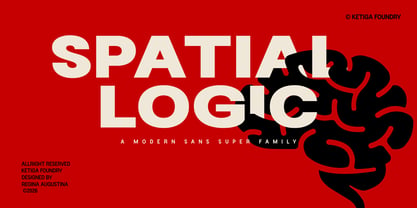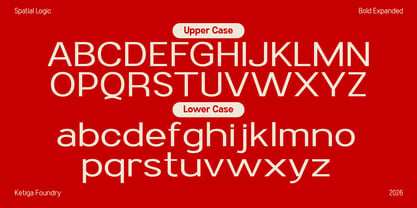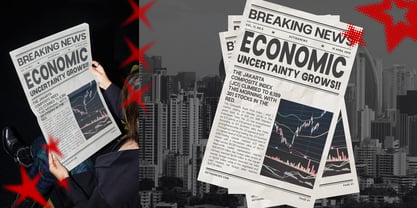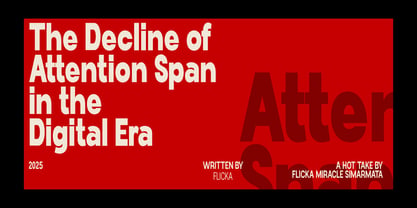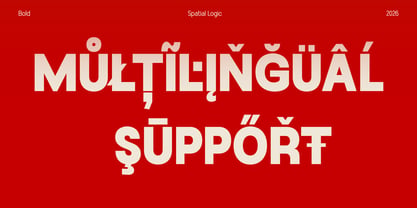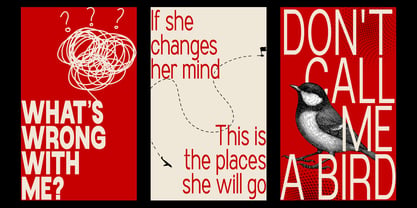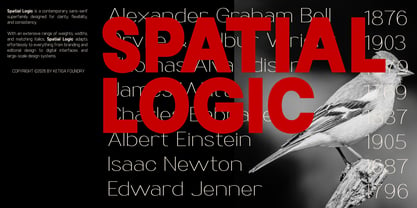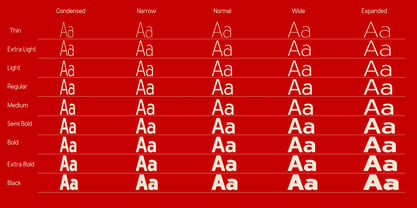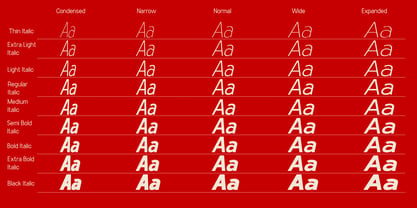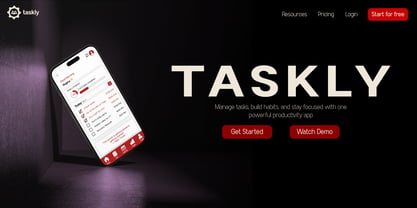
Spatial Logic
La famille de polices Spatial Logic a été conçue par Reginaa Augustina et publiée par Ketiga Foundry. Spatial Logic contient 31 styles et options de package familial. En savoir plus sur cette famille
Spatial Logic is a contemporary sans-serif superfamily crafted for modern visual systems, offering an exceptional blend of clarity, flexibility, and precision across its diverse styles. This extensive collection features 90 fonts, encompassing five widths, nine weights, and matching italics, providing a comprehensive typographic toolkit suitable for various applications such as branding, editorial design, user interfaces, and packaging. The carefully balanced proportions and clean geometry of Spatial Logic ensure reliable performance in both display and text settings, making it an ideal choice for projects of any scale.